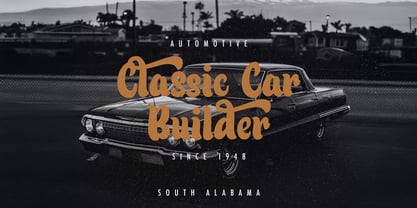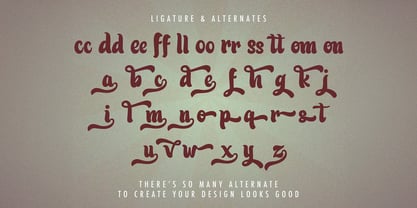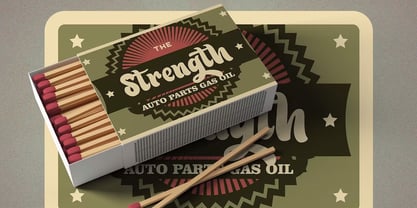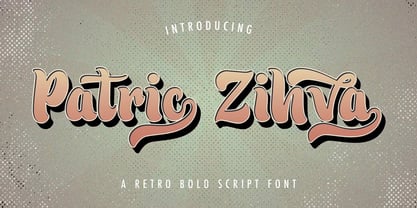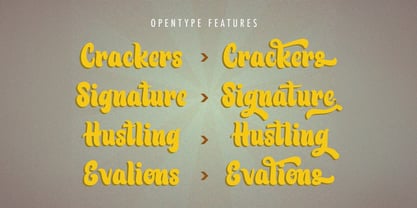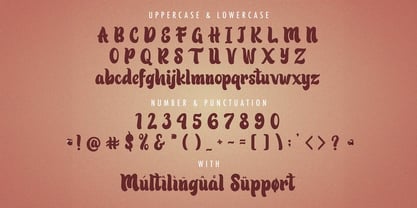
Patric Zihva
by Stringlabs Creative Studio
The Patric Zihva Font Family was designed by Virgiawan Listanto and published by Stringlabs Creative Studio. Patric Zihva contains 1 styles. More about this family
Patric Zihva is a bold and stylish retro script font that blends classic vintage charm with modern flair. With its strong, confident strokes and playful curves, this font captures the essence of the golden era of design while adding a fresh, contemporary twist.
Designers: Virgiawan Listanto
Foundry: Stringlabs Creative Studio